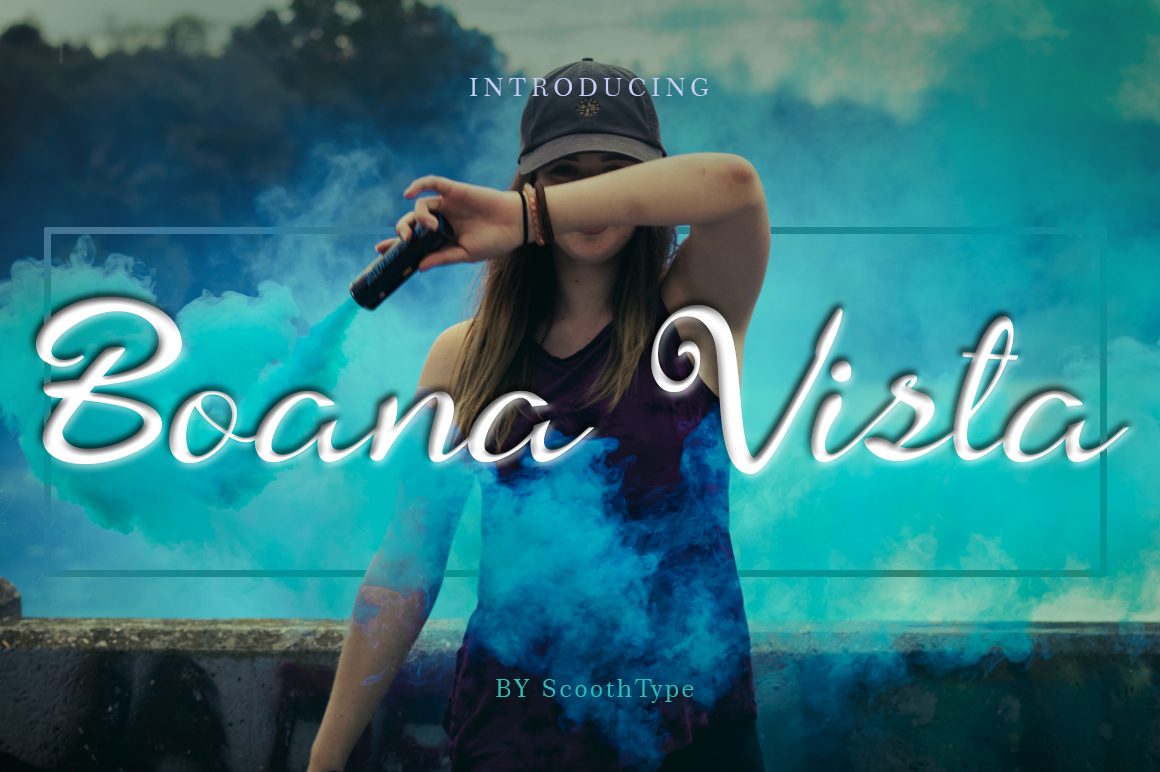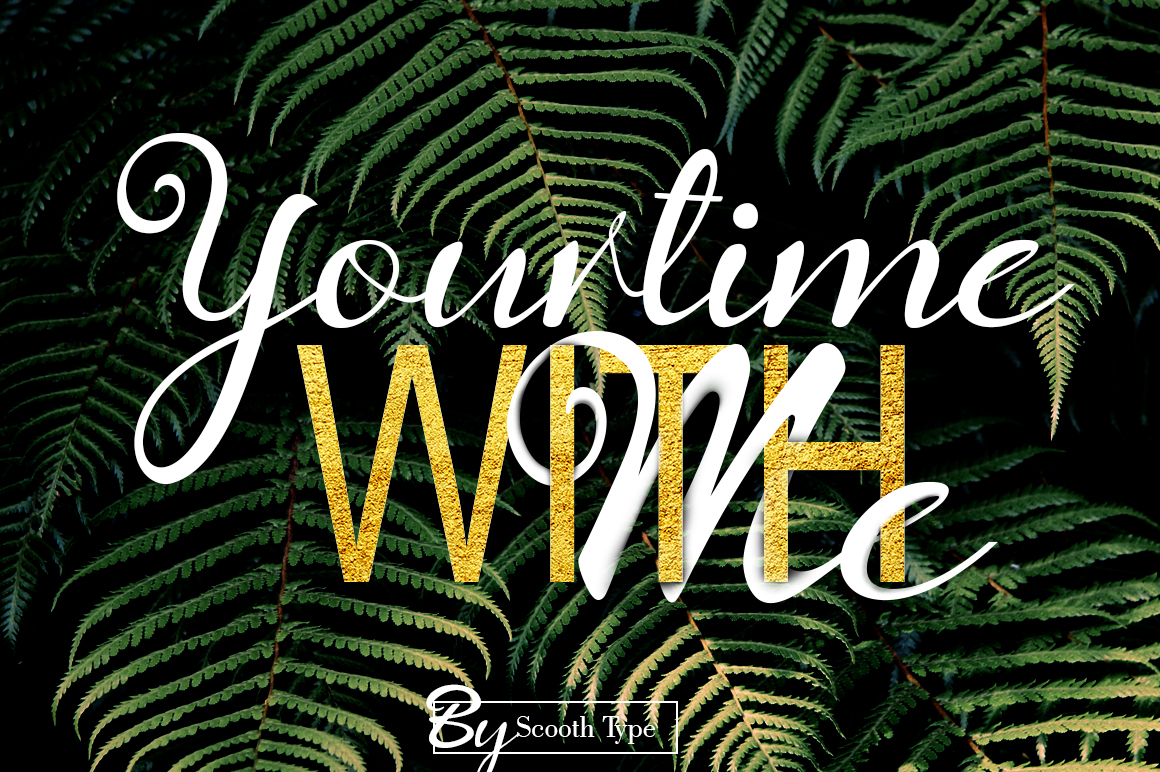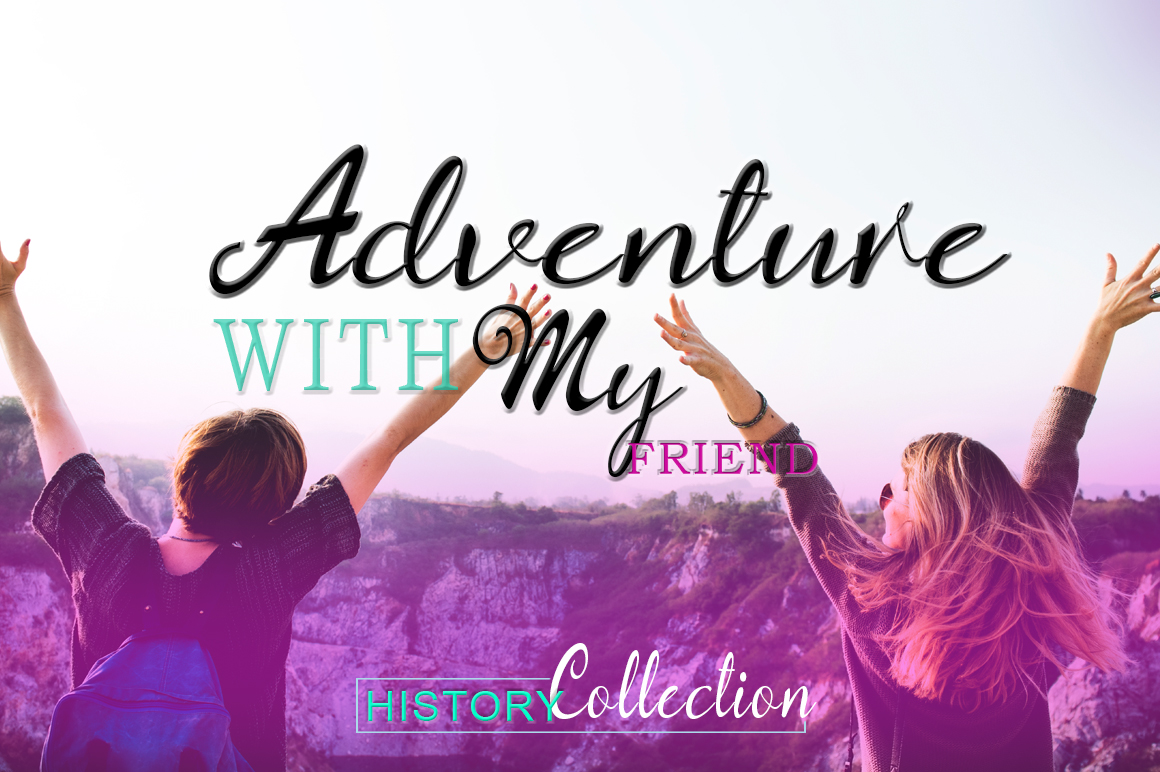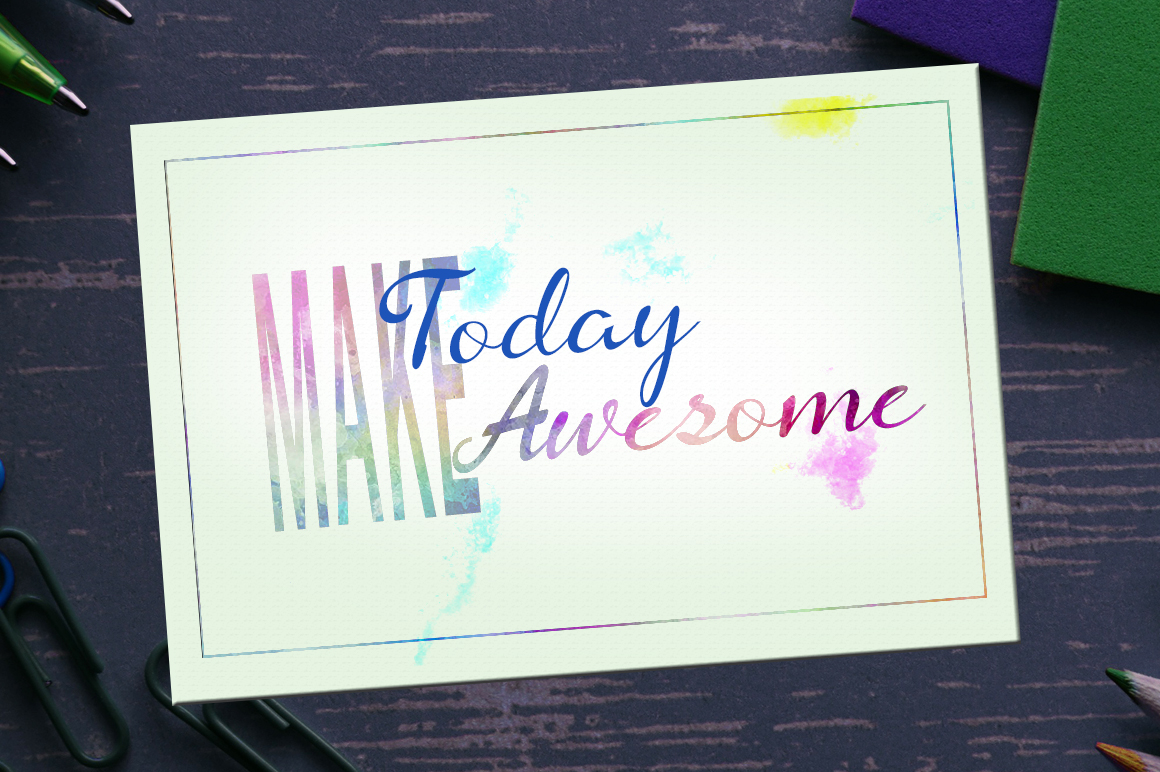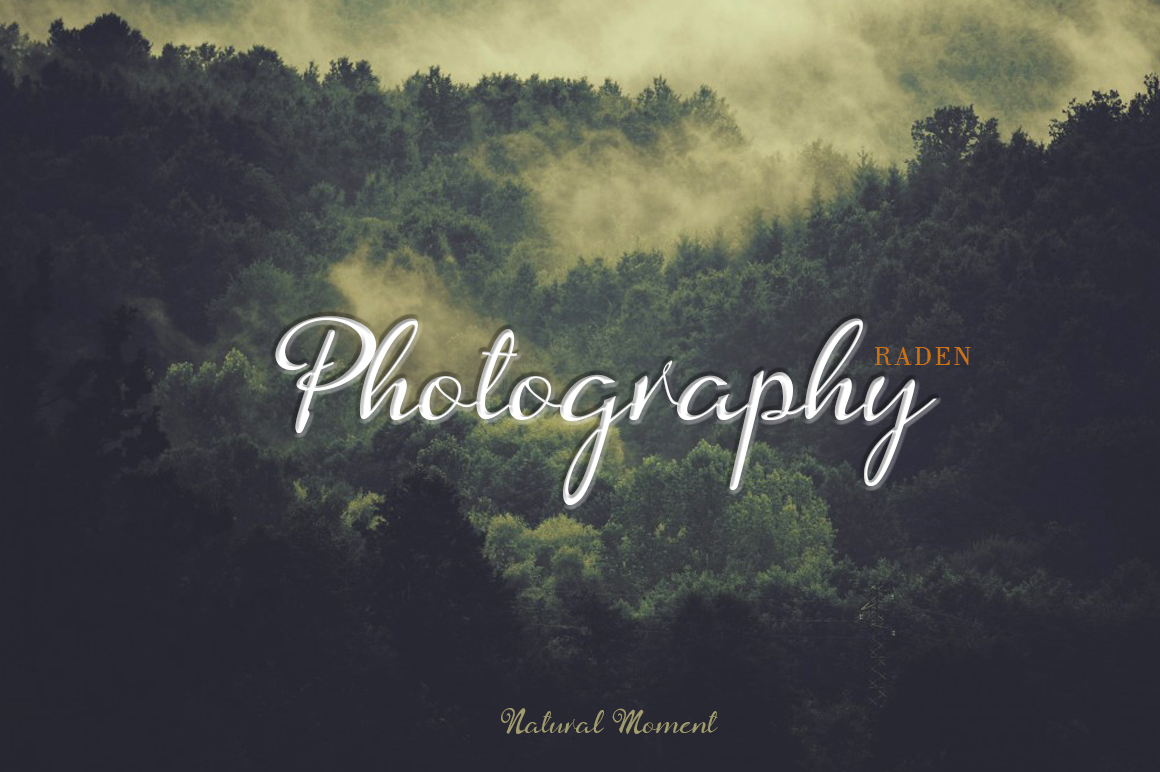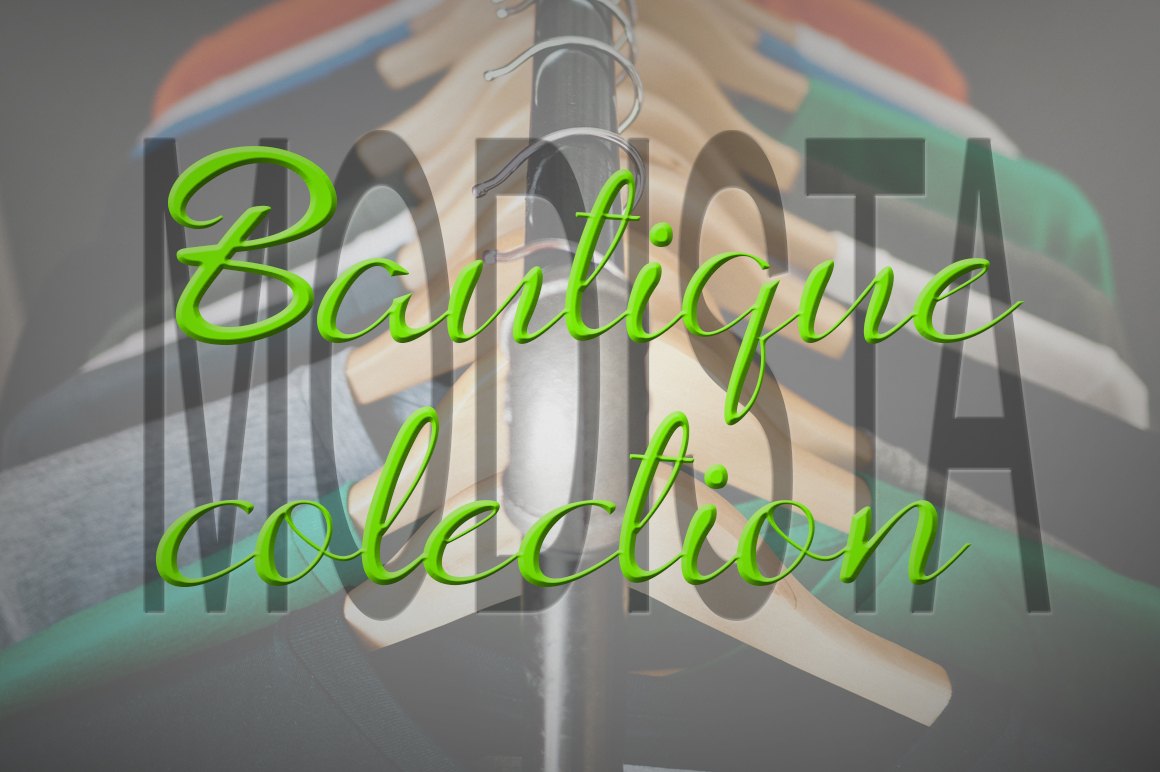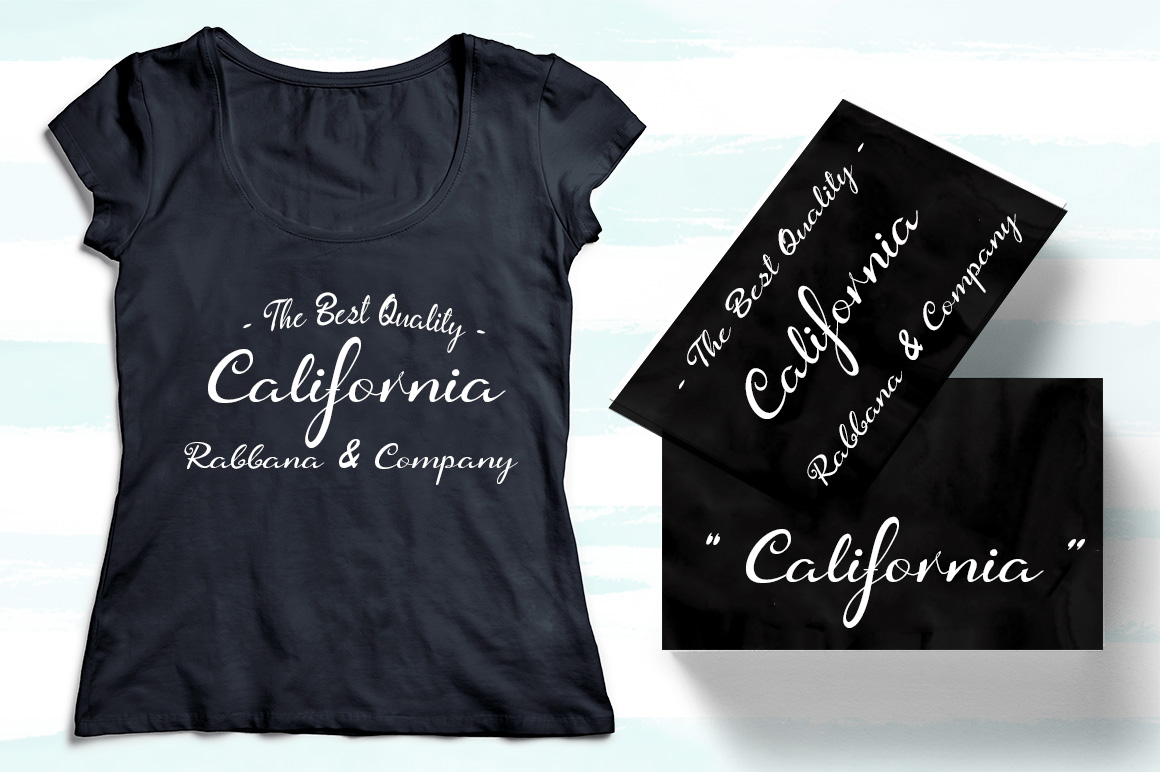
Boana Vista Font
Boana Vista is a beautiful script font that has a variable baseline, fine lines, with a classic and elegantly modern touch. Can be used for various purposes, most notably for displays and attention grabbing designs.